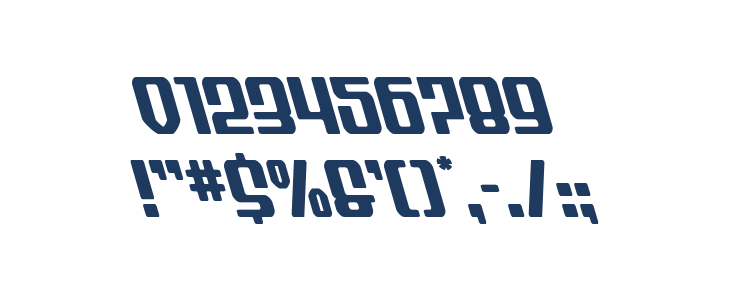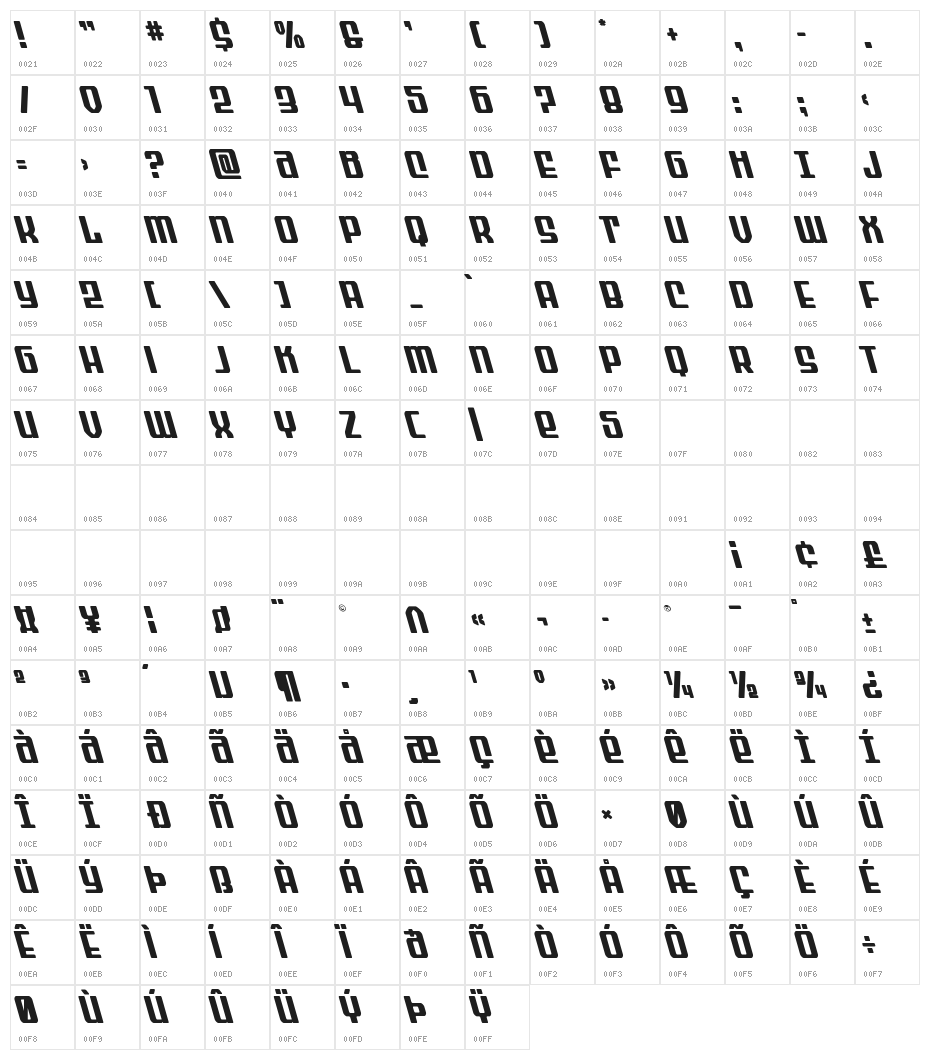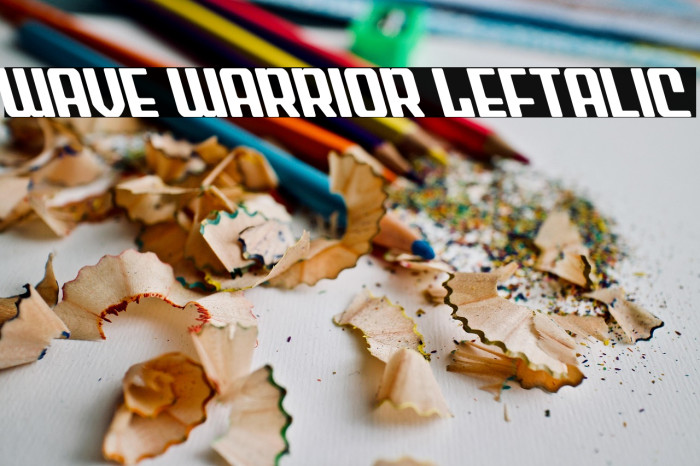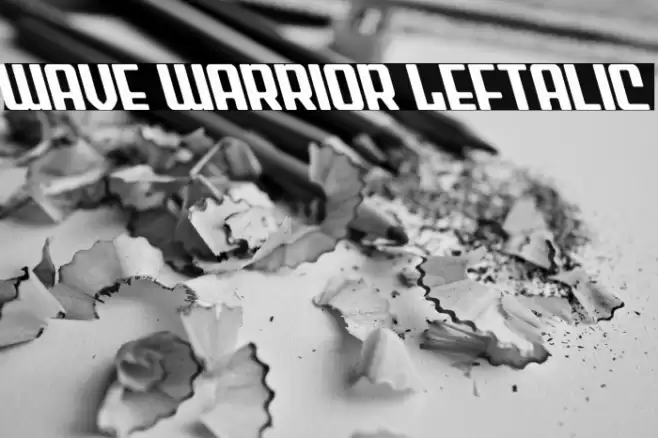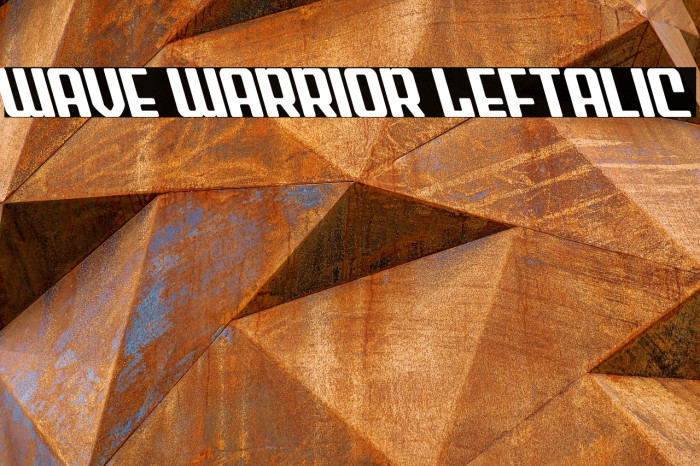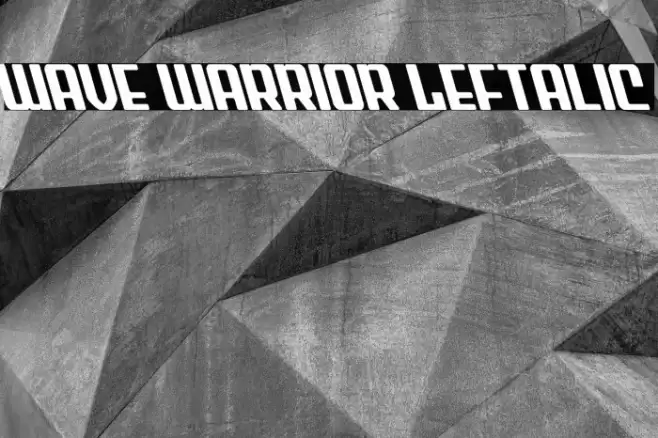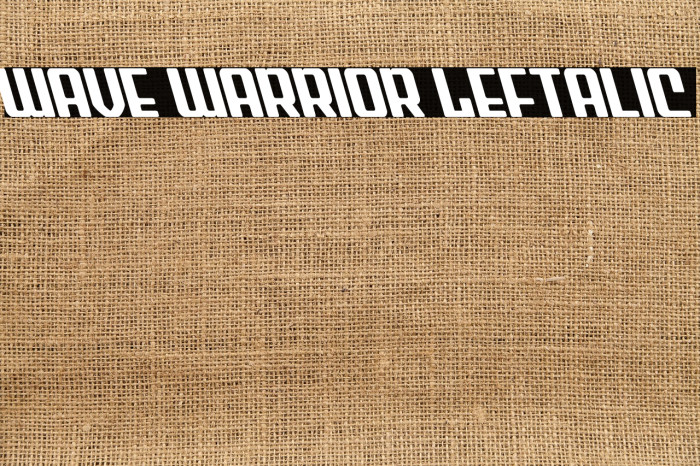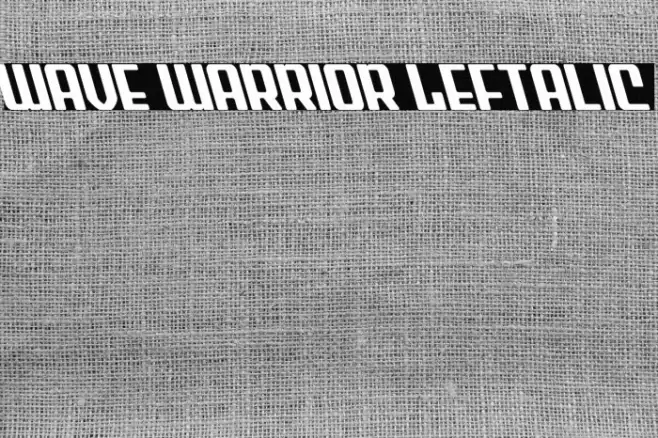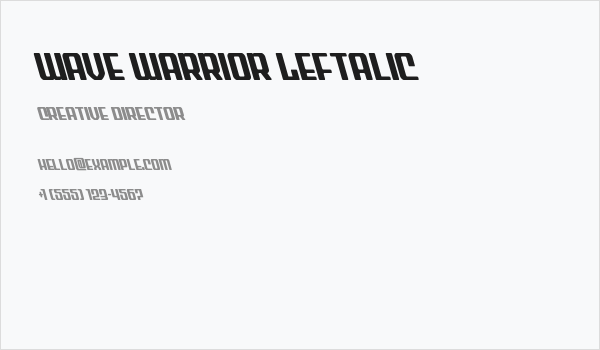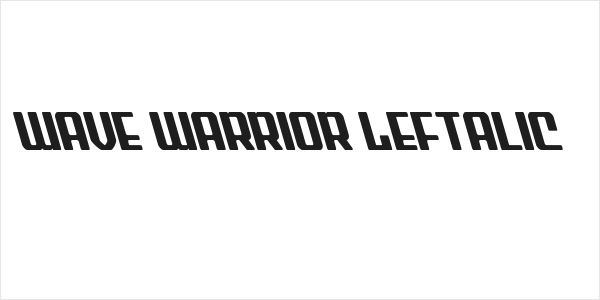
Wave Warrior Leftalic Font
Wave Warrior Leftalic Description
This font features a bold and dynamic style with a strong geometric influence. The characters are slightly slanted, giving a sense of movement and energy. The uppercase and lowercase letters maintain a consistent width, contributing to a uniform appearance. The numbers and special characters follow the same bold and angular design, ensuring cohesion across all elements. The font's thick strokes and sharp angles make it highly legible, even at smaller sizes. Its unique style is both modern and assertive, making it suitable for impactful designs.
| Proposed Projects | Ideal for sports branding, action-themed posters, video game titles, and dynamic advertising campaigns. |